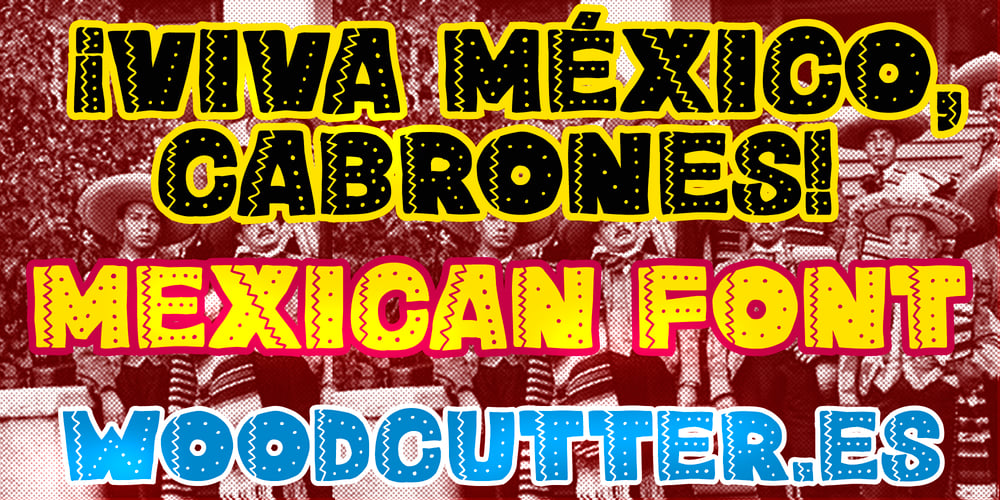
Viva Mexico Cabrones Font Family was designed by Jordi Manero and published by Woodcutter. Viva Mexico Cabrones contains 1 styles and family package options. “¡Viva México, Cabrones!” is a vibrant and decorative font that captures the festive and colorful essence of Mexico. The letters, adorned with traditional details, evoke the joy and spirit of Mexican celebrations. Each character, including accents, reflects the rich visual culture of Mexico, from its festivals to its folk art. This font is ideal for projects aiming to convey energy, liveliness, and authenticity, perfect for party posters, cultural events, and any design celebrating Mexican heritage with pride and style.